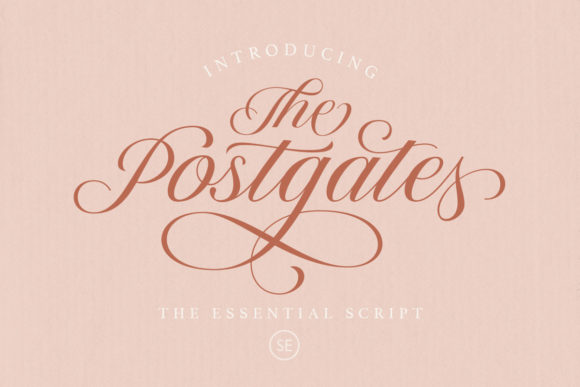
Unleash the Enchantment of Your Words with The Postgates Font: A Timeless Masterpiece for Weddings
In the realm of typography, The Postgates Font emerges as a symphony of elegance and charm, a script font that captures the essence of timeless romance. Its graceful curves and delicate strokes evoke a sense of nostalgia, inviting you to pen heartfelt letters, craft enchanting wedding invitations, and design unforgettable thank you cards.
As you immerse yourself in the world of The Postgates Font, you'll discover a treasure trove of possibilities, a font that seamlessly adapts to your creative vision. Whether you're crafting a heartfelt love letter or expressing gratitude with a thoughtful note, The Postgates Font becomes your trusted companion, transforming words into works of art.
This exquisite font is meticulously crafted with PUA encoding, ensuring effortless access to a symphony of glyphs and swashes. Unleash your creativity and let your imagination soar as you explore the endless possibilities of The Postgates Font.
With its timeless allure and versatility, The Postgates Font is the perfect choice for capturing the magic of your special day. Create wedding invitations that radiate elegance, thank you cards that exude warmth, and heartfelt letters that resonate with sincerity. Let The Postgates Font weave its magic into your words, transforming them into cherished keepsakes that tell a tale of love, joy, and enduring connections.